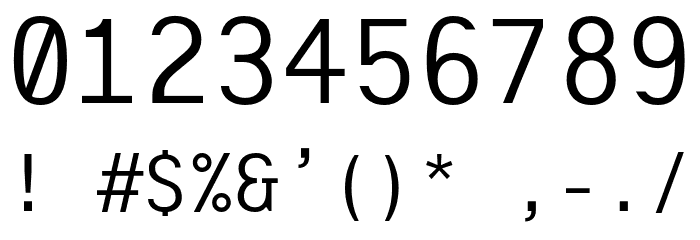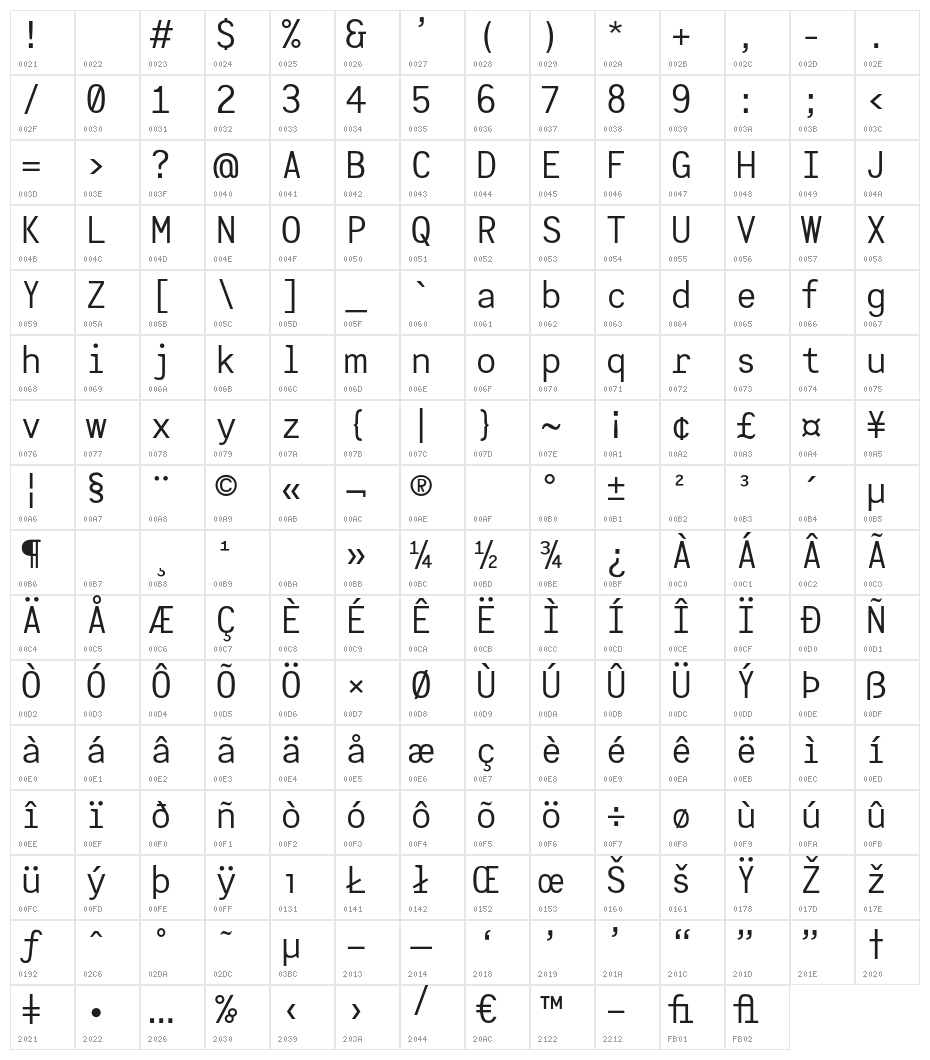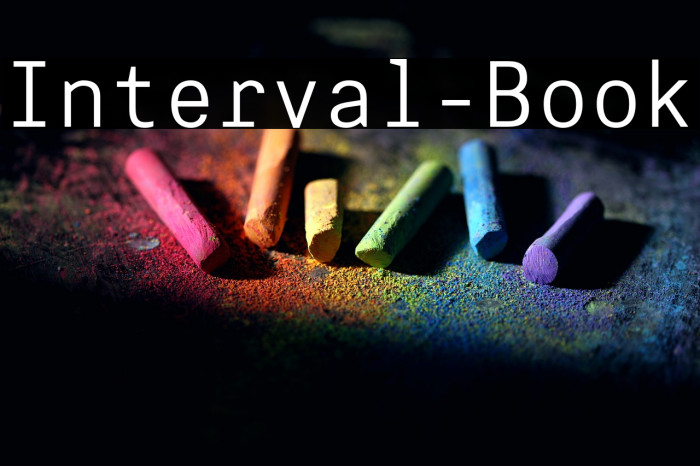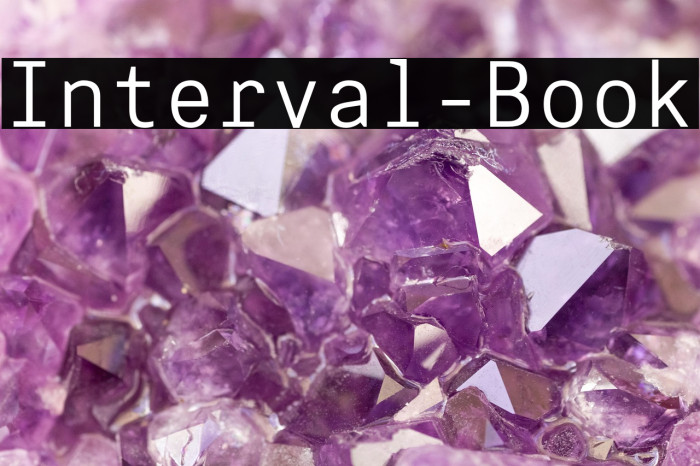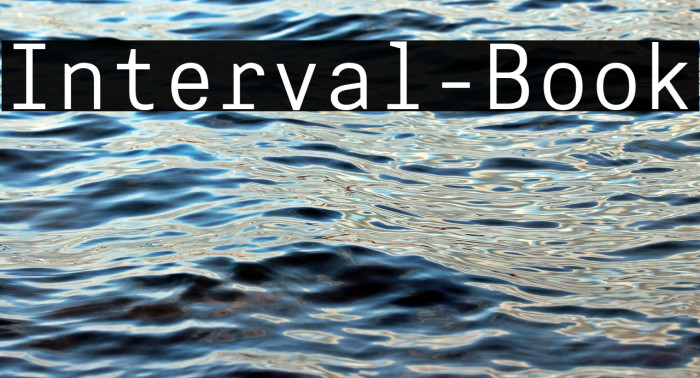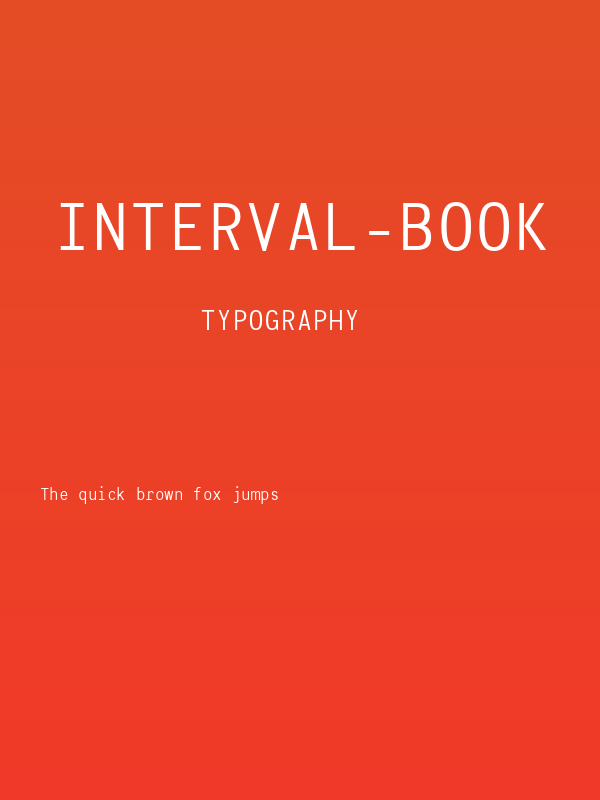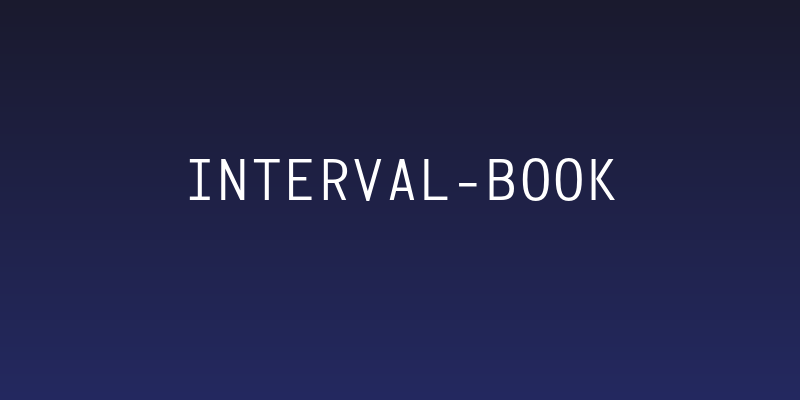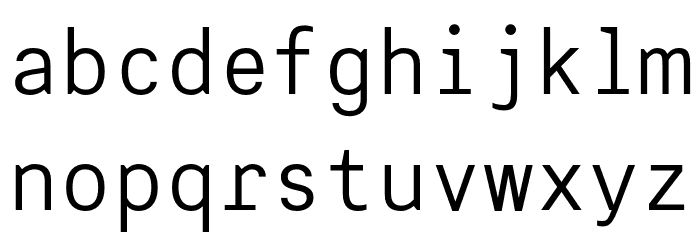
Interval-Book Font
Interval-Book Description
This font features a clean and modern sans-serif style with a geometric structure. The characters are uniform and balanced, providing excellent readability. The uppercase letters are slightly taller than the lowercase, which are rounded and open. The numerals are proportional, matching the height of the uppercase letters, and the special characters are designed to complement the overall aesthetic. The font's simplicity and clarity make it versatile for various design applications.
| Proposed Projects | Ideal for digital interfaces, branding, editorial design, and signage. |